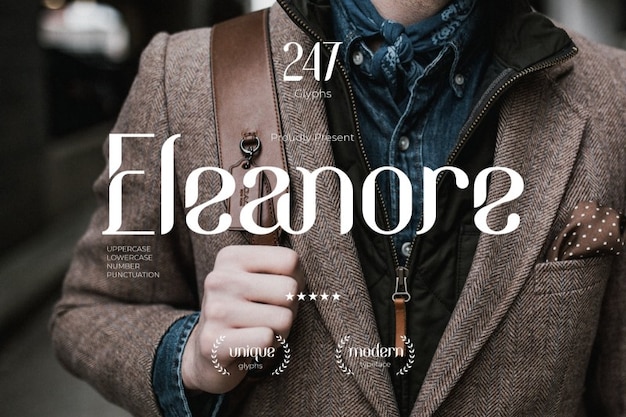
Eleanore Font
This font is the epitome of modern elegance. With its refined curves and intricate details, it brings a touch of sophistication to any project. The delicate lines and graceful flourishes give it a fancy allure that's perfect for invitations, branding, and high-end designs. When you want to make a statement that's both contemporary and chic, "Eleanore" is the font that effortlessly embodies modern luxury.